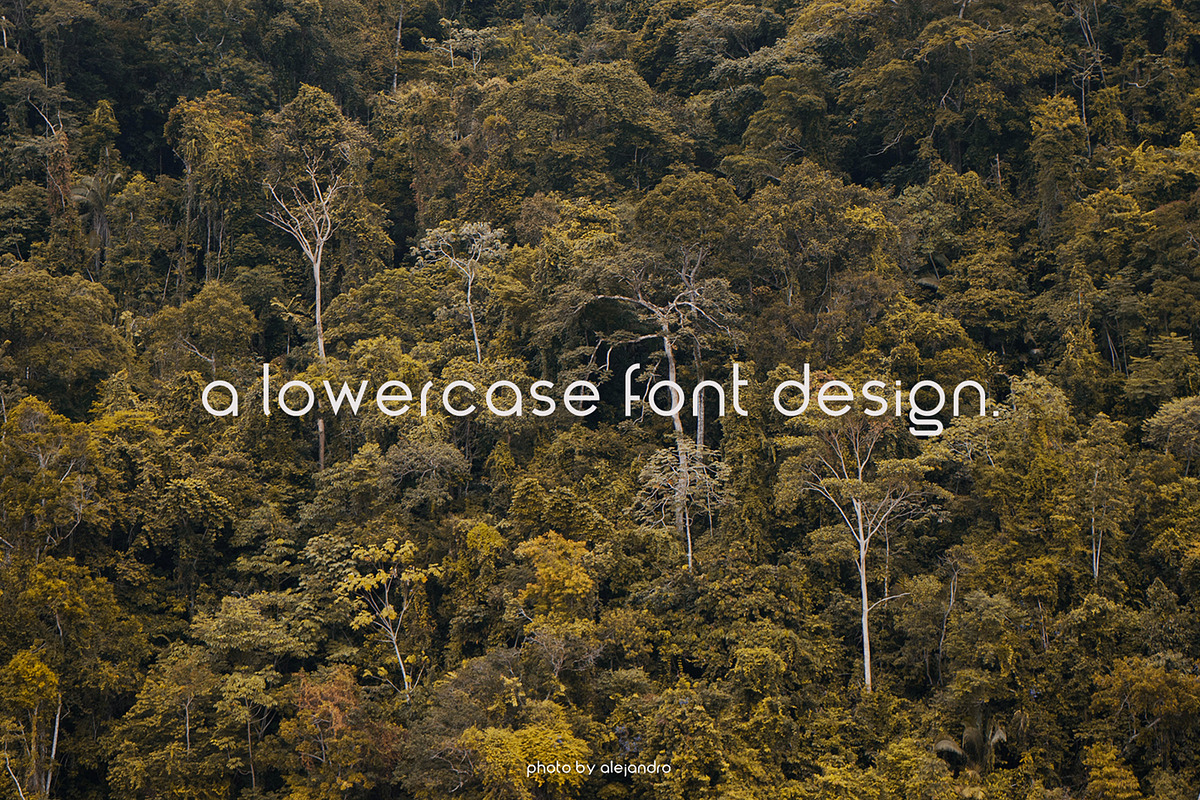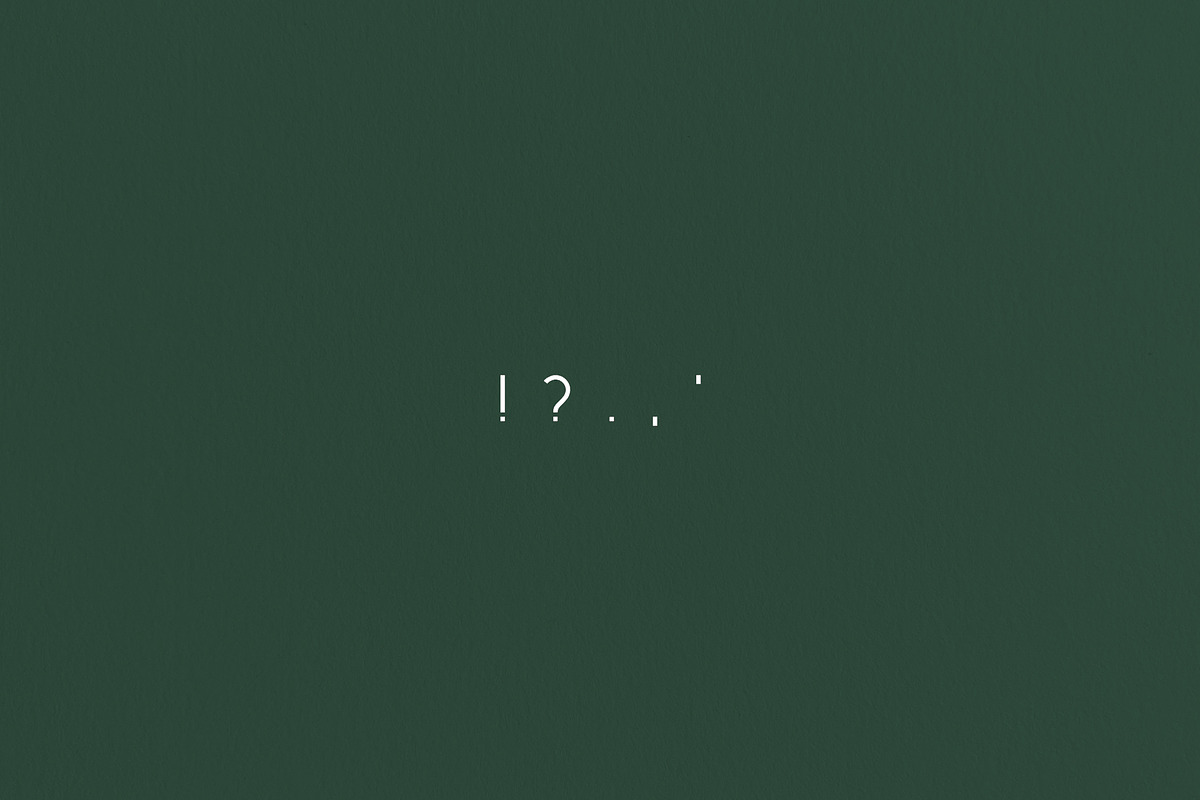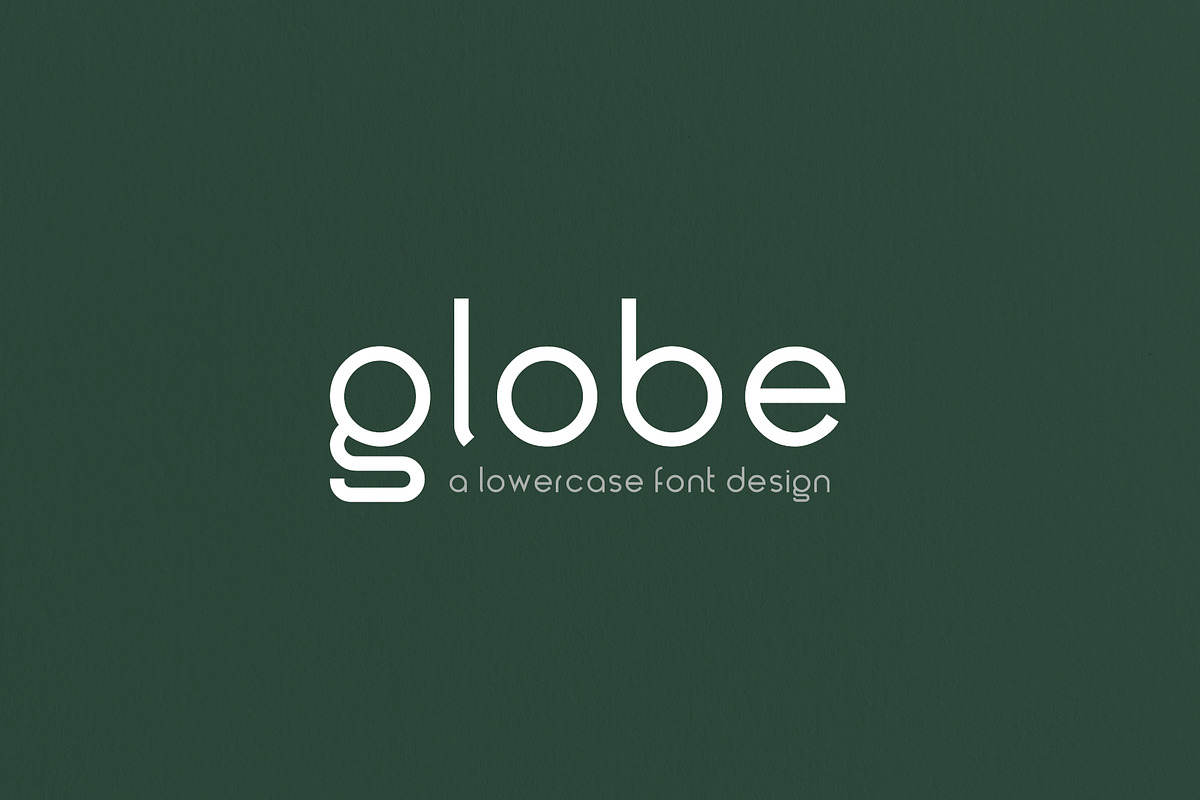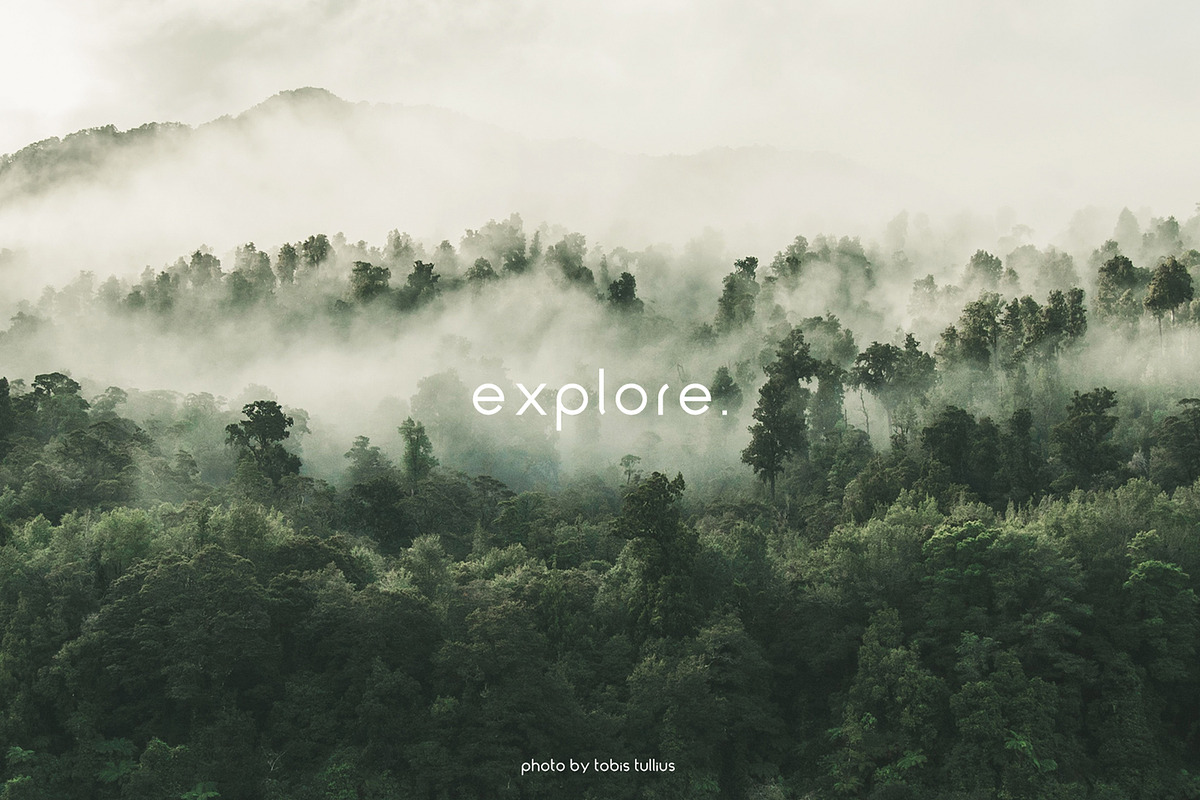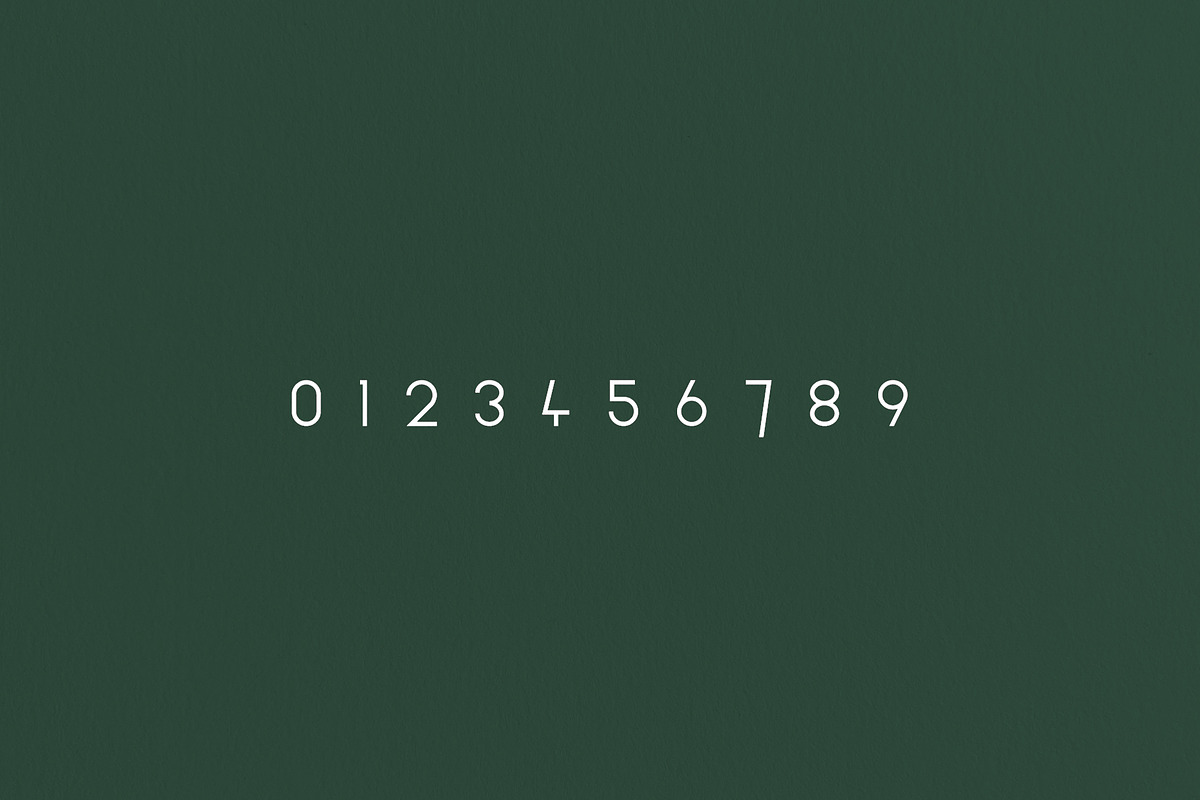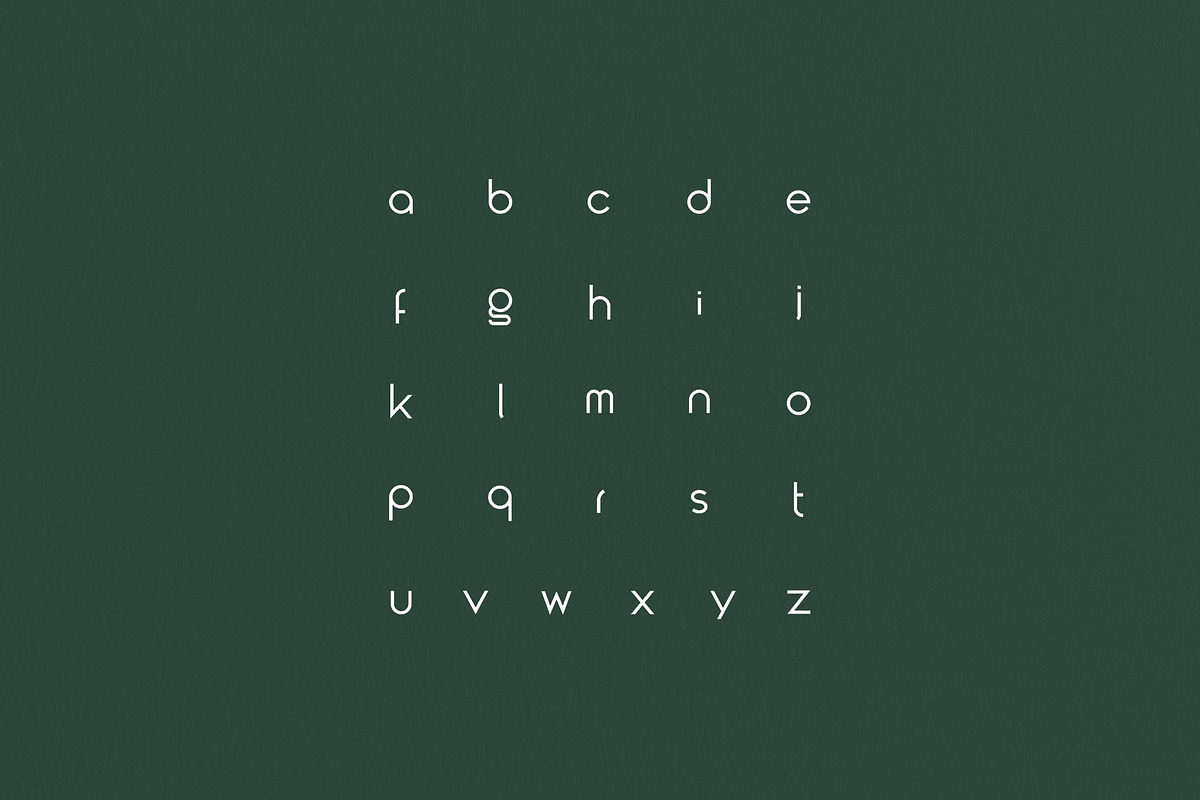
globe - a lowercase font design
This font design only contains lowercase letters, numbers and two other characters. It's a very clean and minimalistic font design, so it fits any style.
Its main use will be for graphic design, posters or collages but of course, you can use it for other things as well.